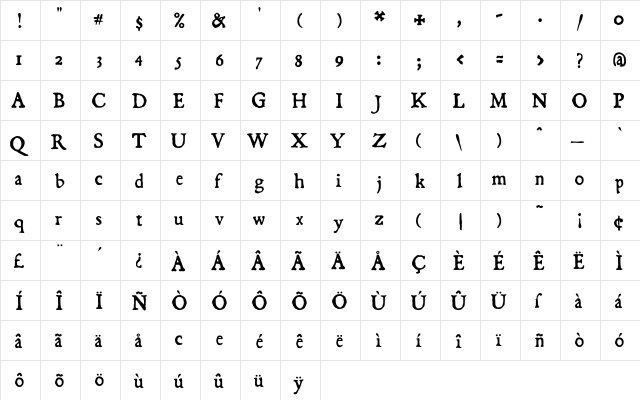
BlackBeard Regular
Design Context for BlackBeard Typeface
BlackBeard is a composed and adaptable typeface that performs quietly and consistently across a wide range of design contexts.
Pro Tip: Pair BlackBeard with a font of contrasting weight or personality to build a more expressive typographic hierarchy.